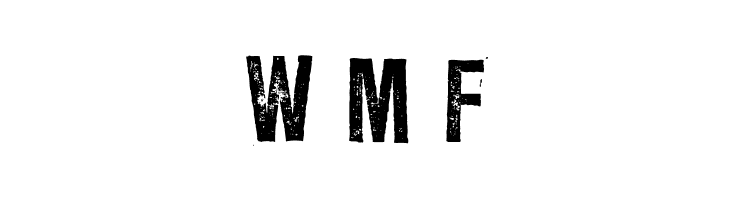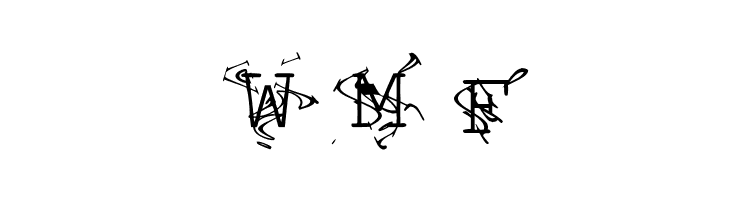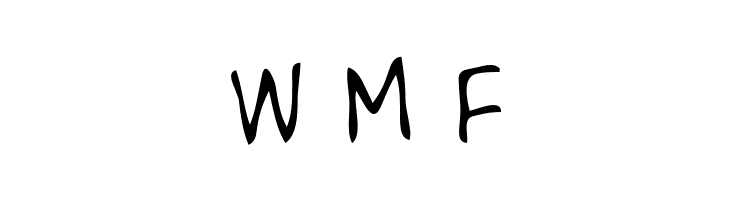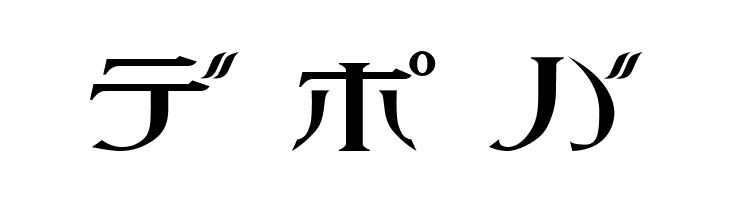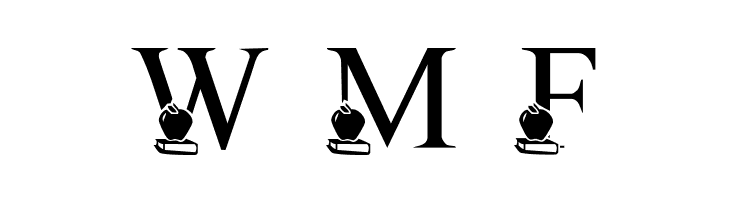
A bold, decorative font with chaotic, liquid-like embellishments.
An ornate and decorative font with vintage-inspired flourishes.
A bold, high-contrast font with sharp, angular strokes and a modern flair.
A playful, handwritten font with irregular strokes and an organic flow.
A bold, distressed font with a rugged, vintage appearance.
A playful, cartoon-style font with letters embedded in bear illustrations.
A bold, decorative font with intricate patriotic motifs.
An elegant, decorative font with whimsical figures holding wine glasses.
A playful, school-themed decorative font with apple and book motifs.
A decorative, whimsical font with intricate, storybook-style characters.
A decorative script font with ivy and ribbon embellishments.
A bold, gothic-inspired decorative font with intricate embellishments.
A bold, decorative font with seahorse embellishments, perfect for nautical themes.
A decorative script font with rose embellishments on each character.
A playful font with bold letters and cartoon characters in costumes.
A whimsical font with daisy-like floral embellishments on each character.
An elegant, ornament-themed decorative font with high contrast script characters.
A bold, decorative font featuring an eagle motif integrated into each letter.
A playful font with soccer ball motifs, ideal for sports-themed designs.
A decorative font with an integrated ankh symbol in each character.
A decorative font with bold, italicized letters and candelabra motifs for a festive look.
A bold, playful font with elephant illustrations accompanying each letter.
A bold serif font with integrated airplane illustrations for a playful touch.
A whimsical, cartoon-inspired font with bold, script-like letters and playful characters.
A bold, decorative font featuring unique emblematic designs within each character.